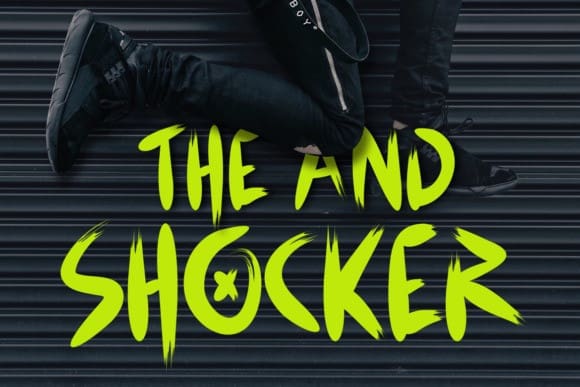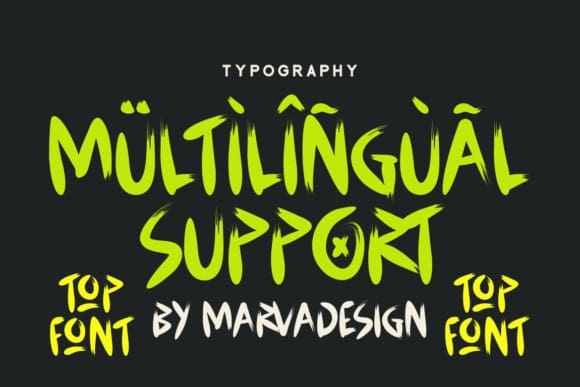
Scratch Handbrush Font
Scratch Handbrush Font is a trendy Modern Handbrush font that effortlessly blends style and personality. With its sleek strokes and contemporary vibe, this font adds a touch of modern flair to your projects. Perfect for giving your designs a fresh and dynamic look, SCRATCH is ideal for everything from casual invitations to eye-catching headlines. Embrace the modern handbrush charm with SCRATCH for a bold and expressive typographic statement.